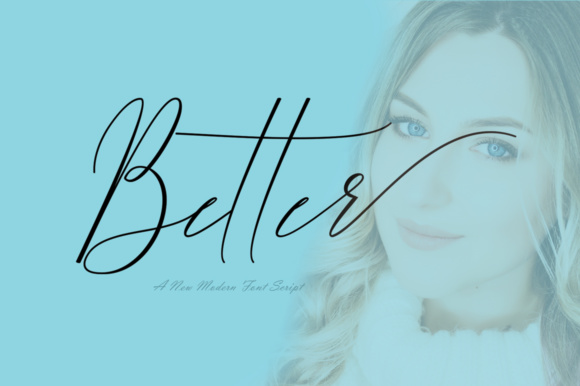
The Elusive Luxury Font: My Journey with Better Font
I still remember the design project that had me on a font quest for what felt like an eternity. My client wanted a luxurious, high-end look for their branding, and I was determined to deliver. After hours of scrolling through font libraries and trying out various combinations, I stumbled upon Better Font. This delicate and swashy calligraphy font was exactly what I needed – and possibly what you’re looking for too! ✨
An Honest Review of Better Font
The Good, the Great, and the Lovely
- ✨ Elegant and sophisticated: Better Font exudes luxury and refinement, perfect for high-end projects.
- ✅ Highly versatile: Suitable for a wide range of applications, from print materials to digital designs.
- 💫 Swashy details: The font’s delicate swashes add a touch of whimsy and flair to any design.
- 📚 Extensive character set: Better Font includes a wide range of characters, ensuring you have everything you need.
While Better Font is an excellent choice, it’s not without its quirks. ⚠️ Here are a few things to keep in mind:
- 🤔 Limited use in body text: Due to its elegant, cursive nature, Better Font might not be the best choice for lengthy paragraphs.
- ⚠️ Occasional kerning issues: As with any font, you may encounter some kerning issues – especially when using swashes.
The Story Behind Better Font
Better Font was designed by a talented typographer who sought to create a luxurious, high-end script font. Inspired by traditional calligraphy, the designer aimed to craft a font that would bring elegance and sophistication to any design project. With its delicate swashes and extensive character set, Better Font has become a go-to choice for designers seeking a refined, luxurious look.
| Font Name | Better Font |
| Author | naldystudio |
Q: What type of projects is Better Font best suited for?
A: Better Font is ideal for luxury branding, high-end print materials, and digital designs that require an elegant, sophisticated look.
Q: Can I use Better Font for body text?
A: While Better Font is beautiful, it’s not recommended for lengthy paragraphs. Its elegant, cursive nature makes it better suited for headings, titles, and short text elements.
Q: Does Better Font include OpenType features?
A: Yes, Better Font features a range of OpenType features, including stylistic alternates, swashes, and glyphs. These can be accessed via the OpenType dropdown menu in compatible design platforms.